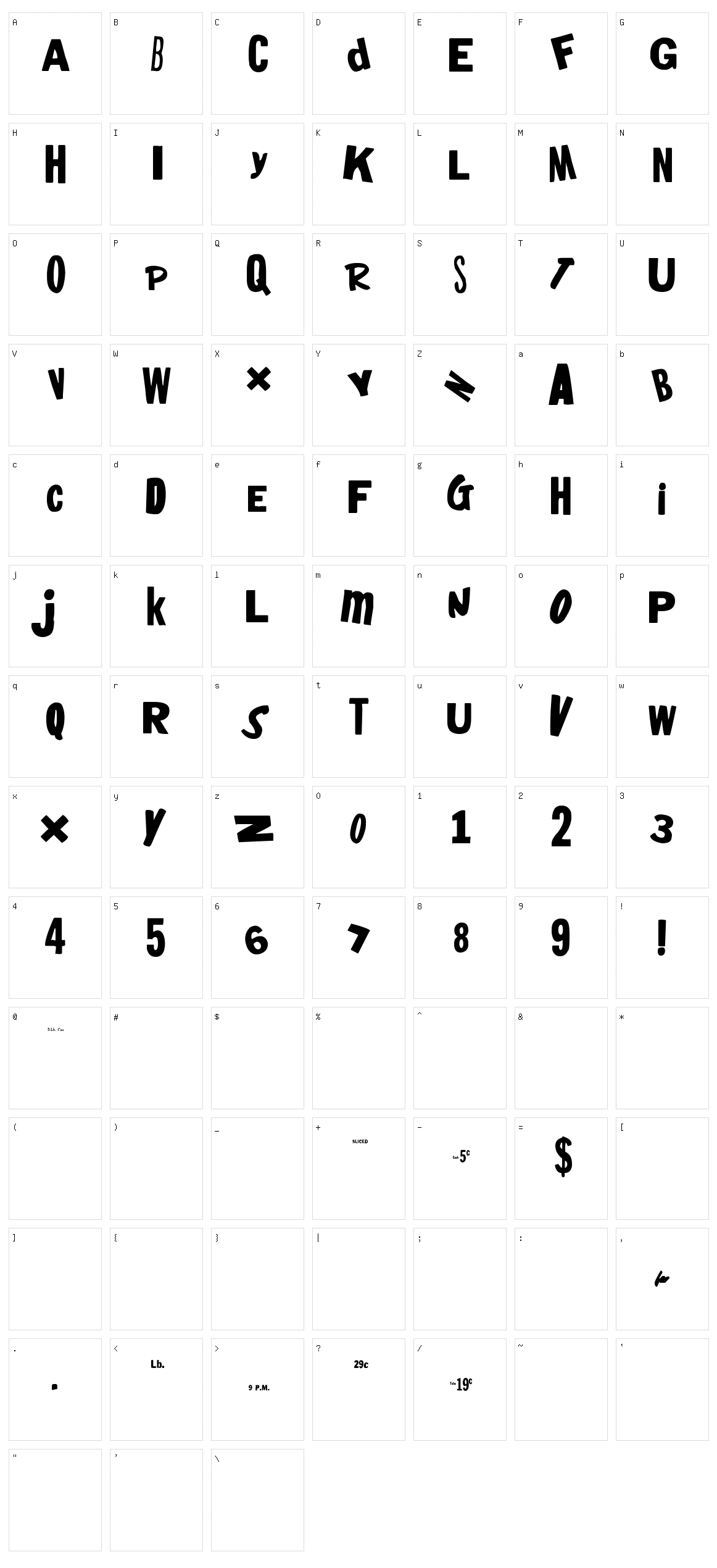
The free font HeyMom! HeyDad! is carefully designed by Lars Manenschijn, showcasing a thoughtful balance of creativity and usability and falls under the Cartoon font style. When you download the ZIP file, it contains only 13.39 KB of font files, making it lightweight and quick to download. Please review the license details below to understand permitted usage and distribution rights. If license information is not available, we recommend using this font for personal projects only or contacting the author directly for commercial usage permissions.